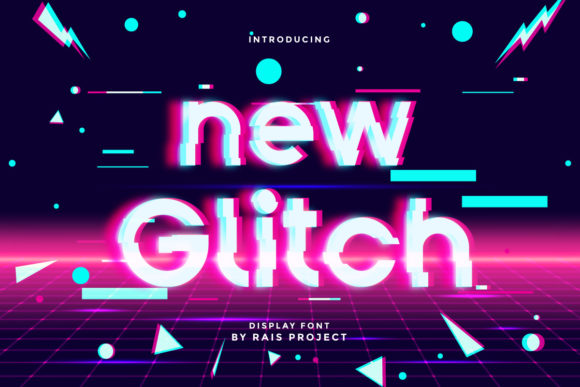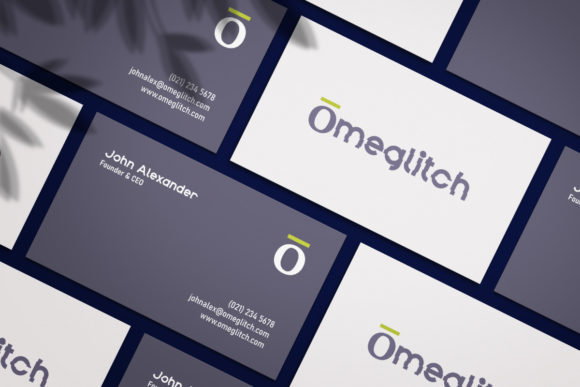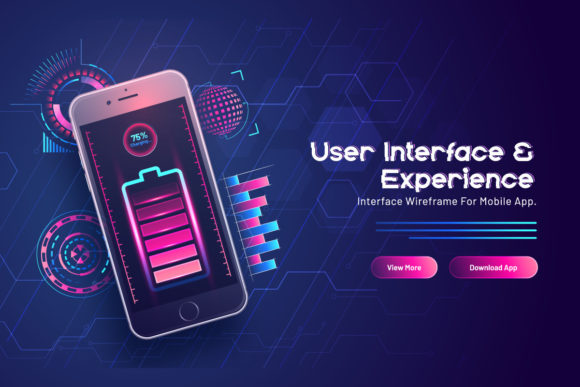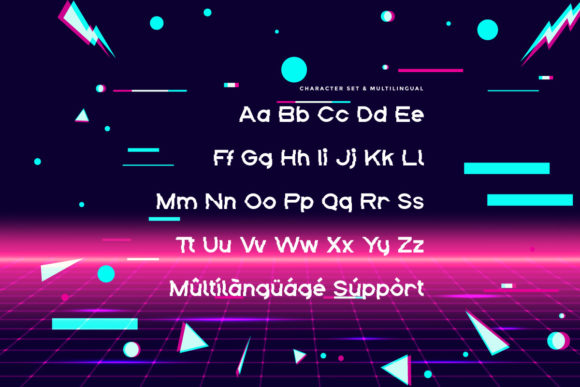
New Glitch Font
About the New Glitch Font
The New Glitch Font is here to transform your projects with its distinctive character and style. New Glitch is a cool techno display font featuring futuristic and bold characters. Use it for sci-fi movie covers, action games, drama, crime books, club posters, and more daring projects.
New Glitch’s bold, futuristic style excels in headlines, posters, and branding for technology-focused companies or entertainment projects with a strong visual identity. It’s ideal for short, impactful text and works exceptionally well on packaging for high-energy products. However, avoid using it for body text or UI elements; its strong character weight and unique glyphs reduce readability in extended use.
Pairing New Glitch effectively requires a contrasting typeface to balance its aggressive energy. A clean sans-serif like Futura or a minimalist geometric font would create a sophisticated contrast, while a more playful, rounded sans-serif could soften its impact. For a more rebellious feel, consider pairing with a distressed or grunge-style serif.
The font projects a powerful, rebellious, and undeniably modern personality. Its core aesthetic is high-energy and attention-grabbing, aligning best with brands that communicate innovation, dynamism, and a futuristic edge.
New Glitch Font Usage Examples
New Glitch Font Example